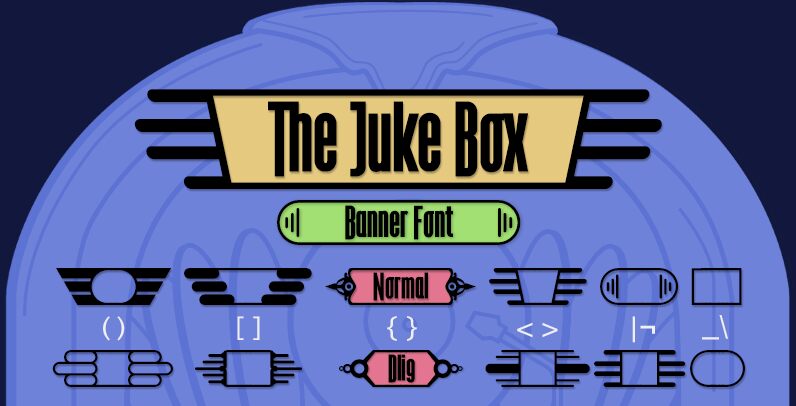
The Juke Box font is inscribed in a frame, which forms a box, to close that box the font has 12 sets of closing of box with JukeBox style.
The Juke Box, has several closures box, use the following keys:
Keys: () [] {} <> | _\
Apply discretionary ligatures in QuarkXpress, inDesign, Photoshop and Illustrator for the second set of ornate closures.
The Juke Box
The Juke Box es una tipografía sans condensada rodeada de un marco tipo caja, contiene también 12 juegos de cierres de caja con estilo JukeBox '50.